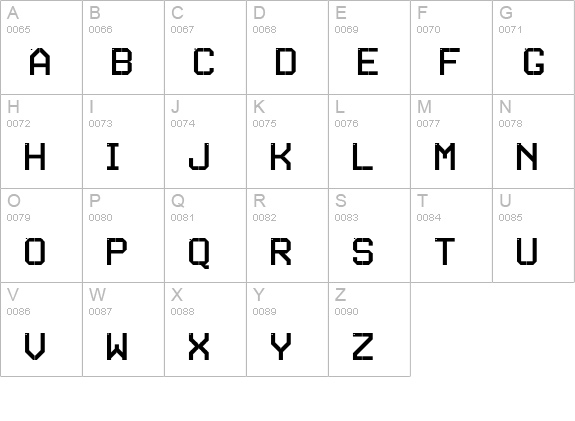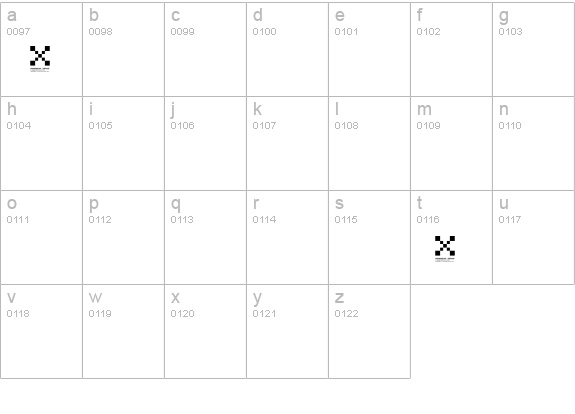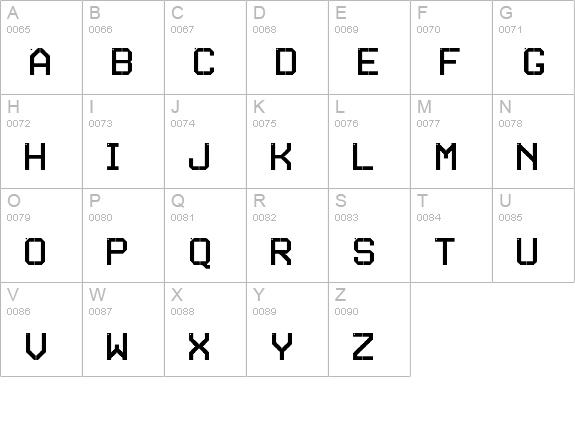
TSERIES C Font Details
The TSERIES C font is a stunning display typeface that exudes elegance and sophistication. With its clean lines and bold letterforms, this font is perfect for adding a touch of modernity to any design project. The TSERIES C font stands out with its sleek and contemporary aesthetic, making it ideal for creating eye-catching headlines, logos, and branding materials. One of the best features of the TSERIES C font is that it is freely available to download at FontsMarket.com. This means that you can easily access this incredible font without any hassle or cost. Whether you are a professional designer looking for a versatile typeface or a casual user in need of a stylish font for personal projects, TSERIES C font offers high-quality design choices that will elevate your work to the next level. The TSERIES C font boasts a wide range of characters, including uppercase letters, lowercase letters, numerals, punctuation marks, and special symbols. Its well-balanced proportions and meticulously crafted details ensure legibility at any size, making it suitable for both print and digital applications. The versatility of the TSERIES C font allows it to seamlessly adapt to various design styles and themes. Whether you are working on a contemporary corporate identity, a sleek fashion magazine layout, or an elegant wedding invitation, this font will effortlessly enhance the overall visual impact of your creation. So, if you are looking for a free font that combines modernity with sophistication, look no further than the TSERIES C font. Download it now from FontsMarket.com and unlock a world of endless design possibilities.